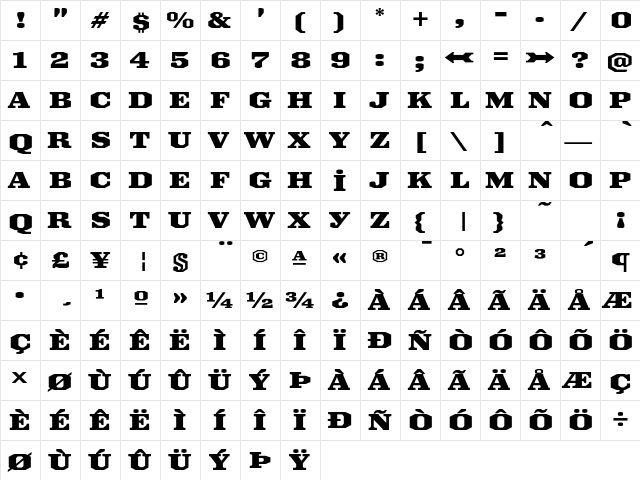
Ironmonger FB Extended Regular
| Foundry | The Font Bureau, Inc |
| Copyright | Copr.1991, The Font Bureau, Inc. Designer, John Downer. |
Design Context for Ironmonger FB Extended Typeface
Ironmonger FB Extended is a composed and adaptable typeface that performs quietly and consistently across a wide range of design contexts.